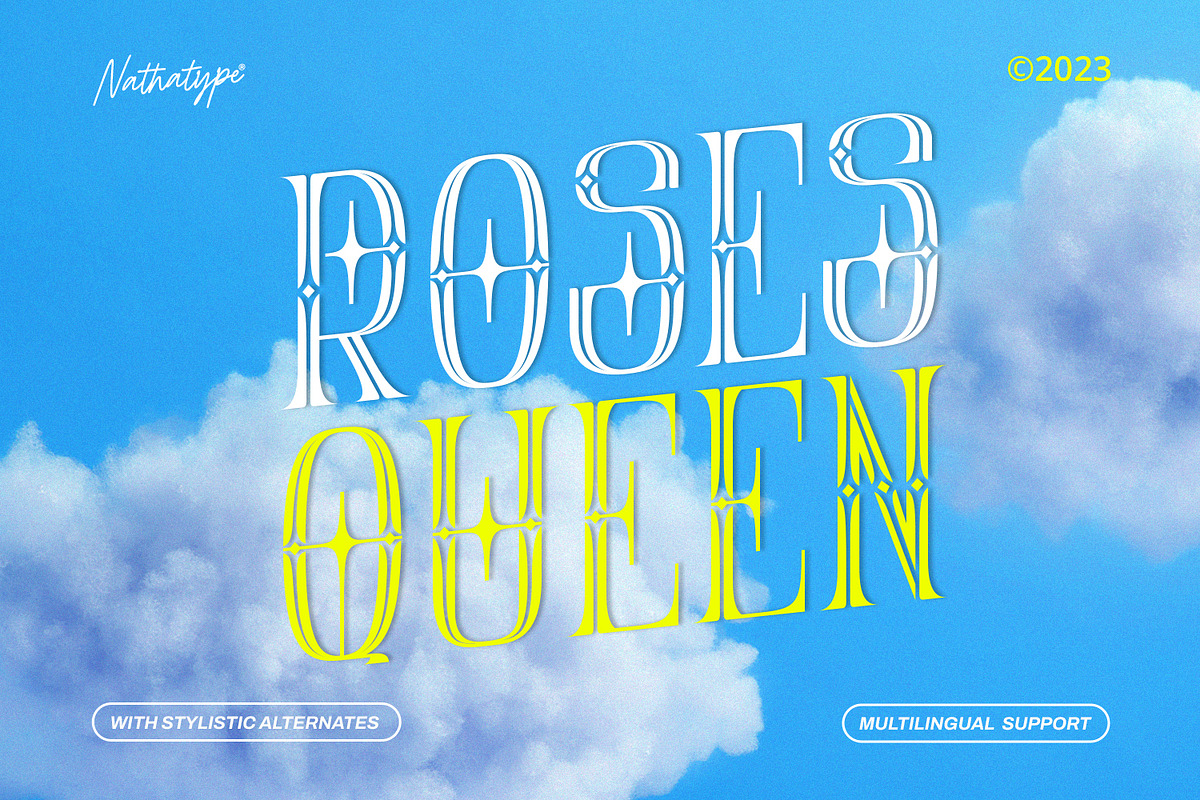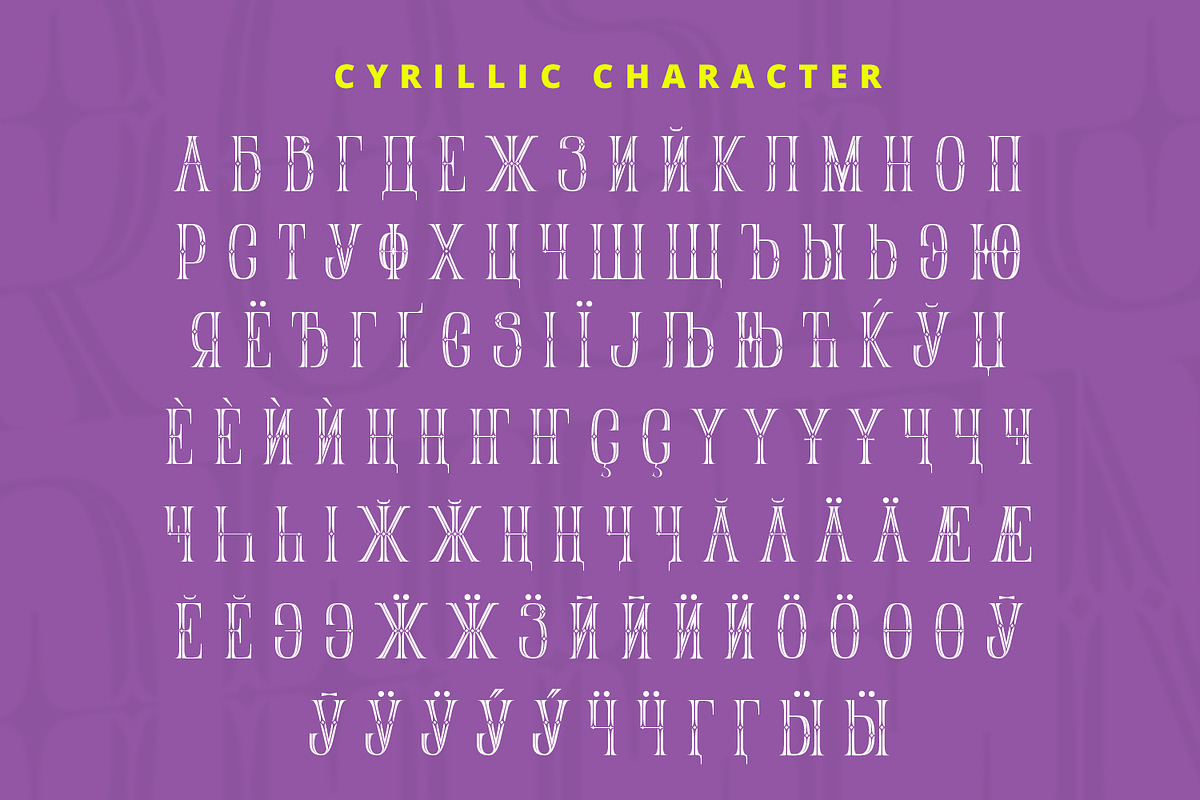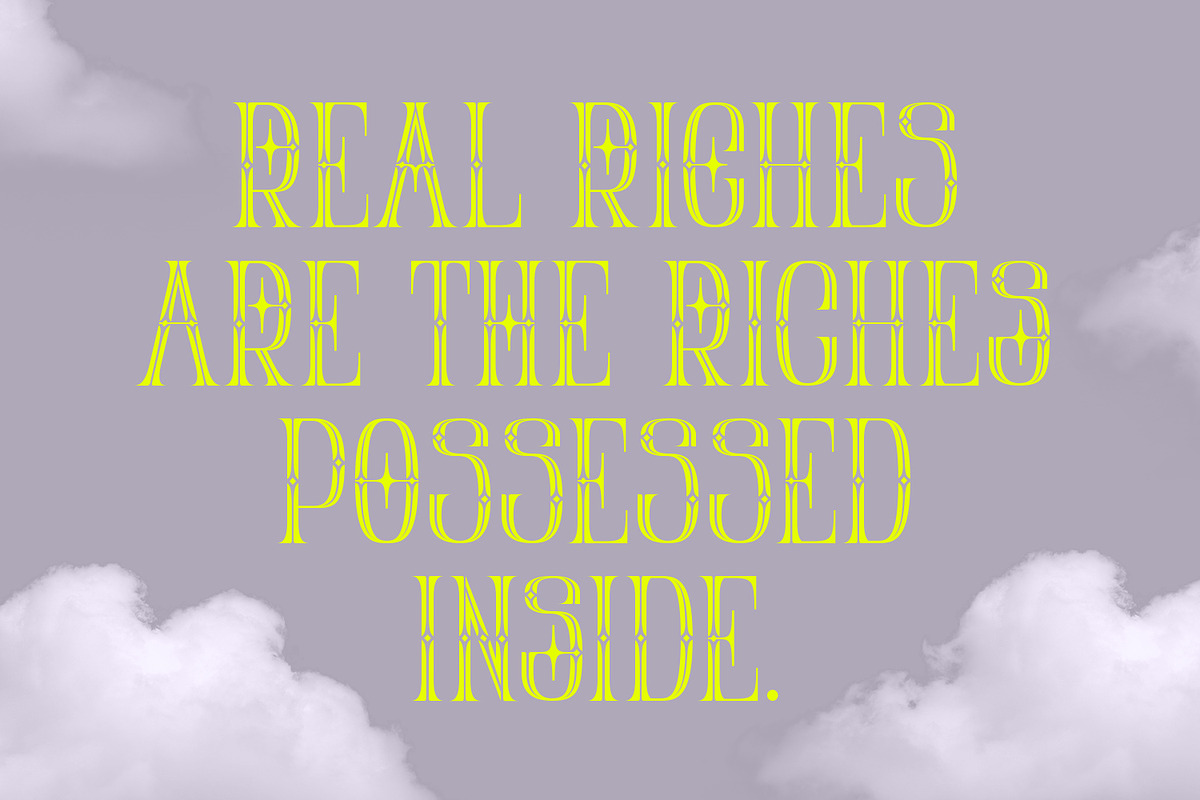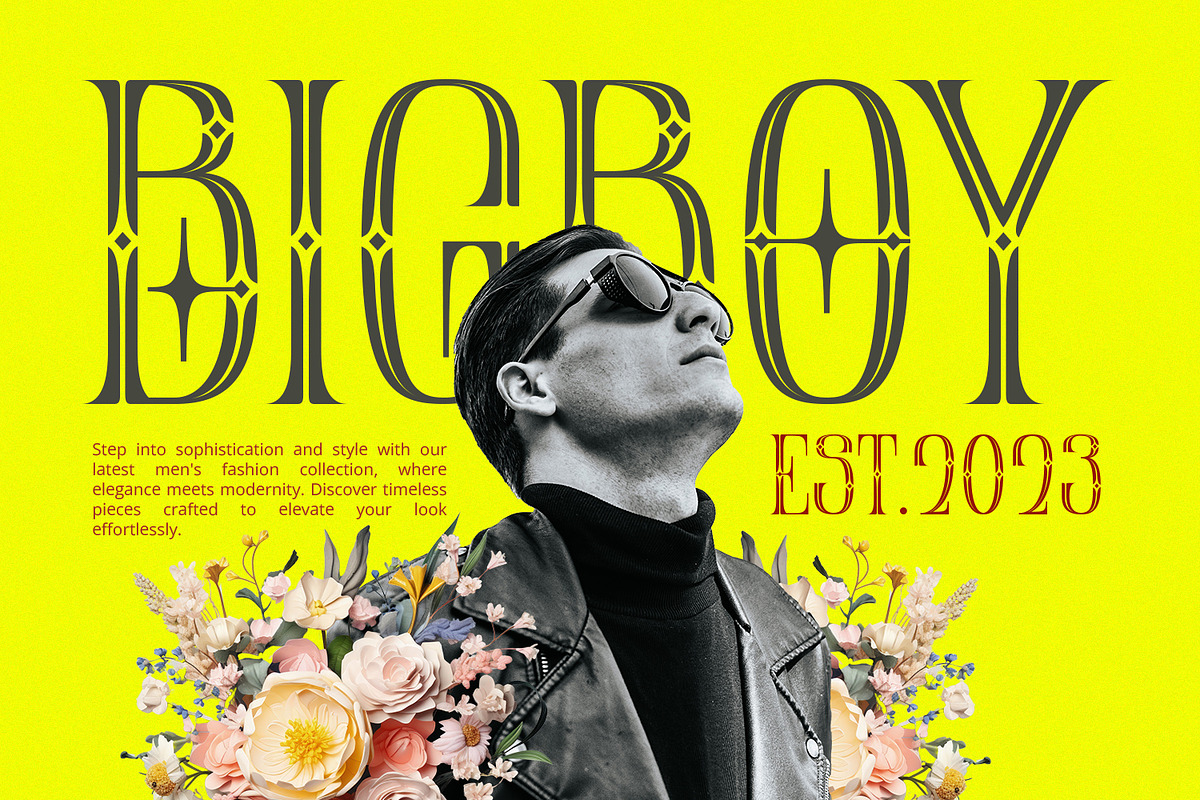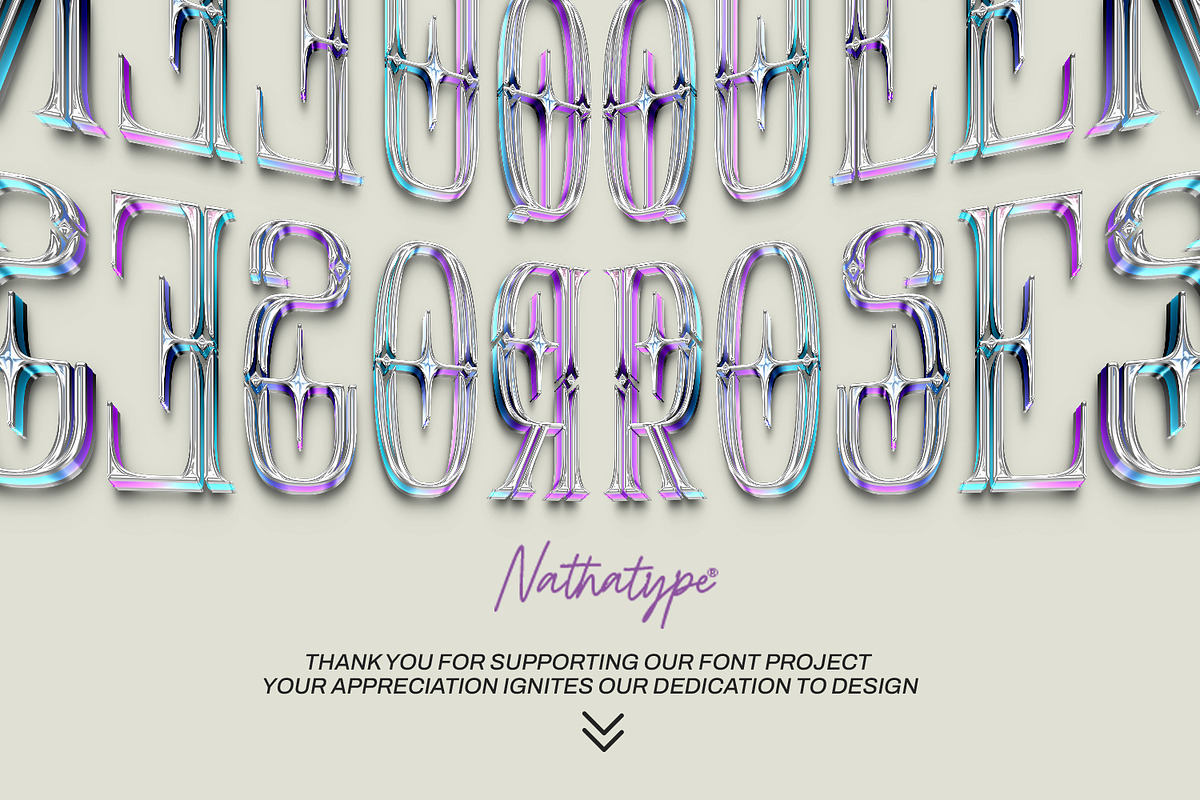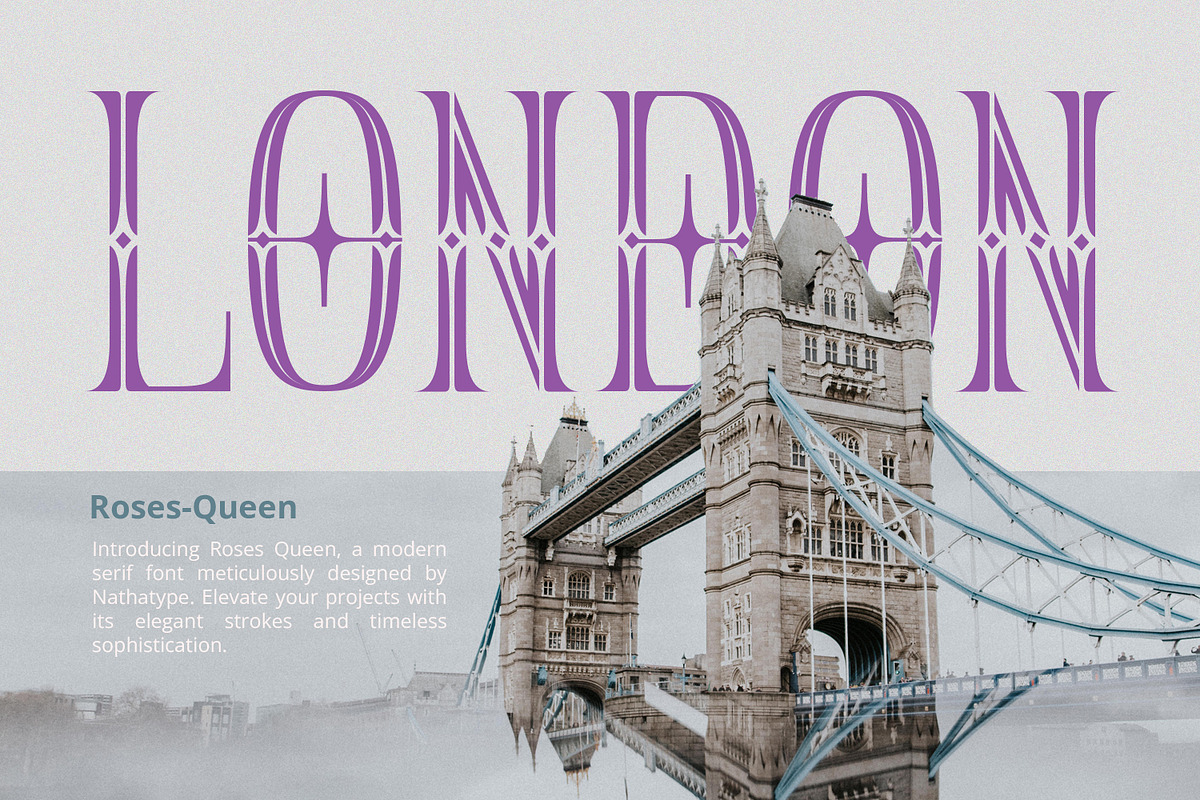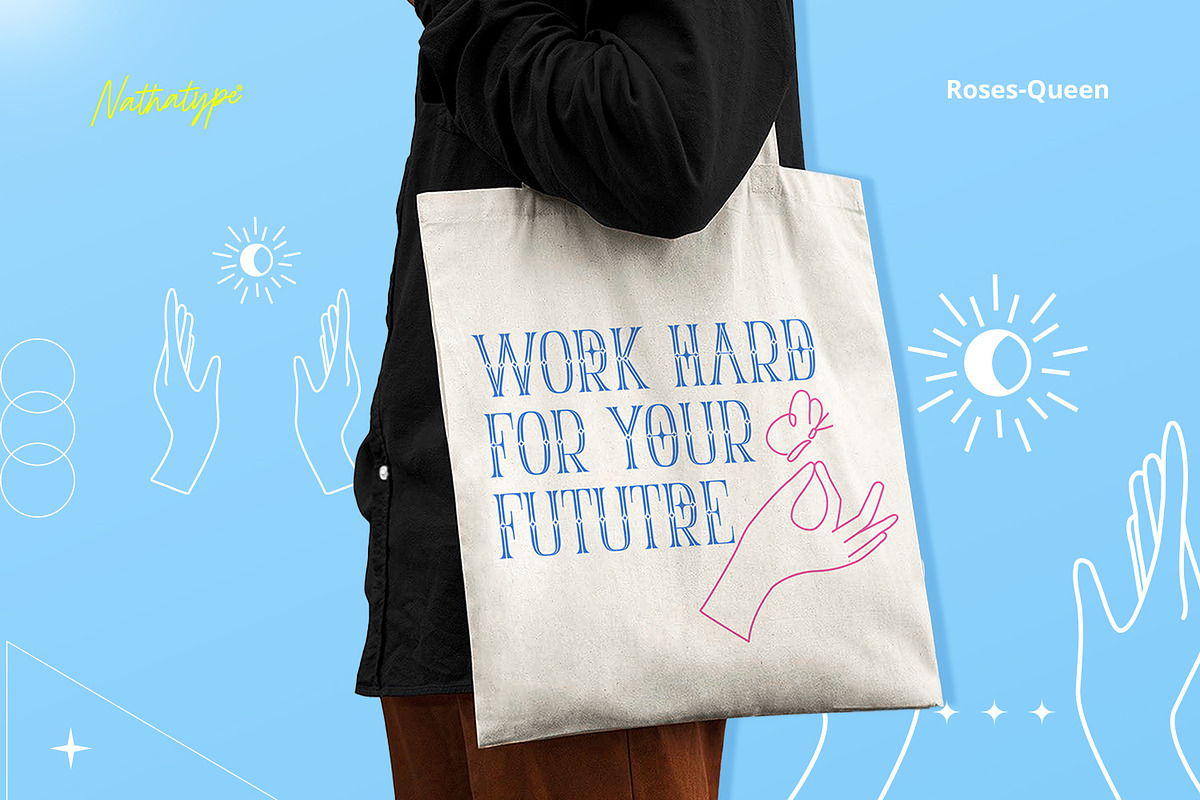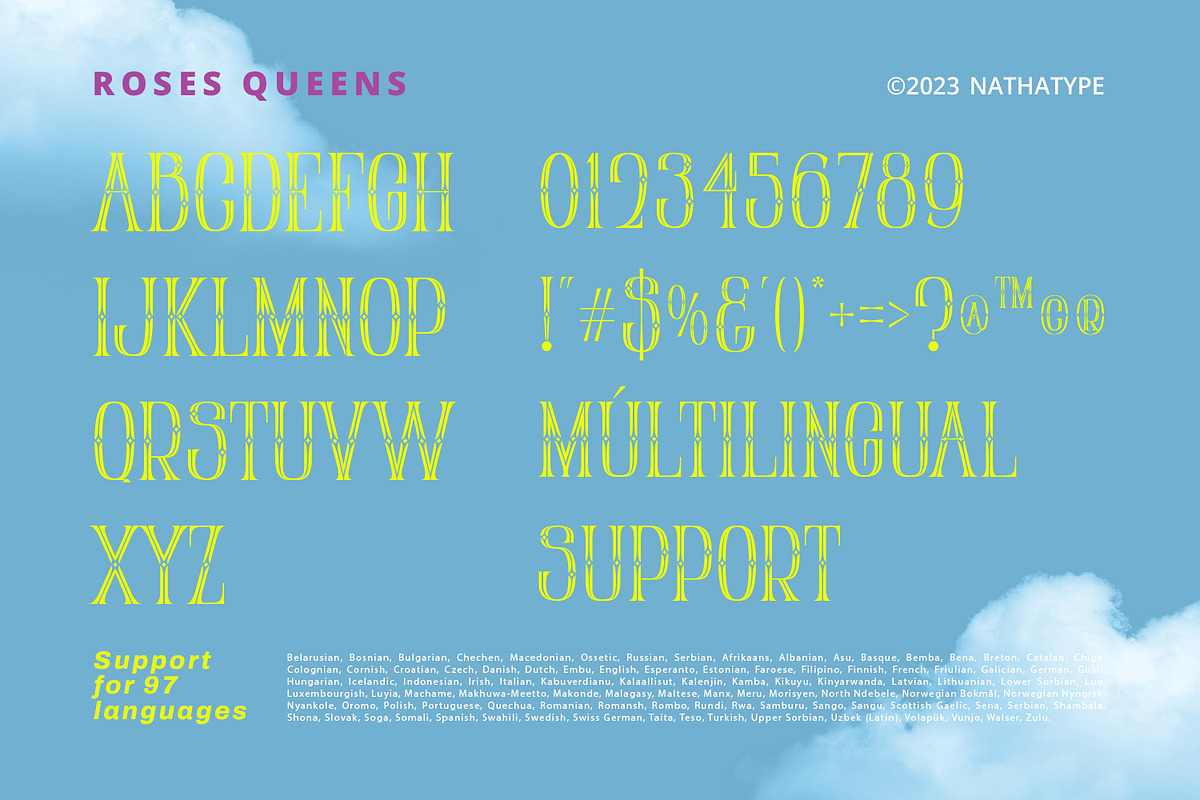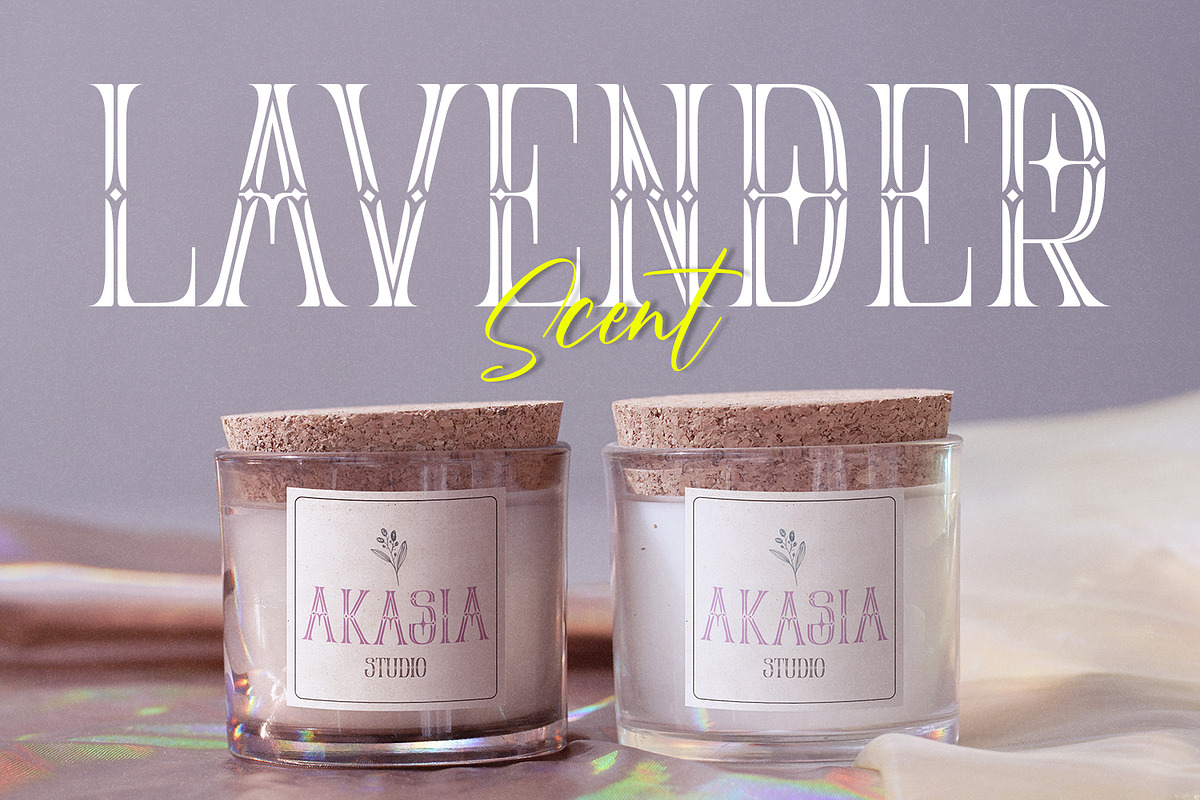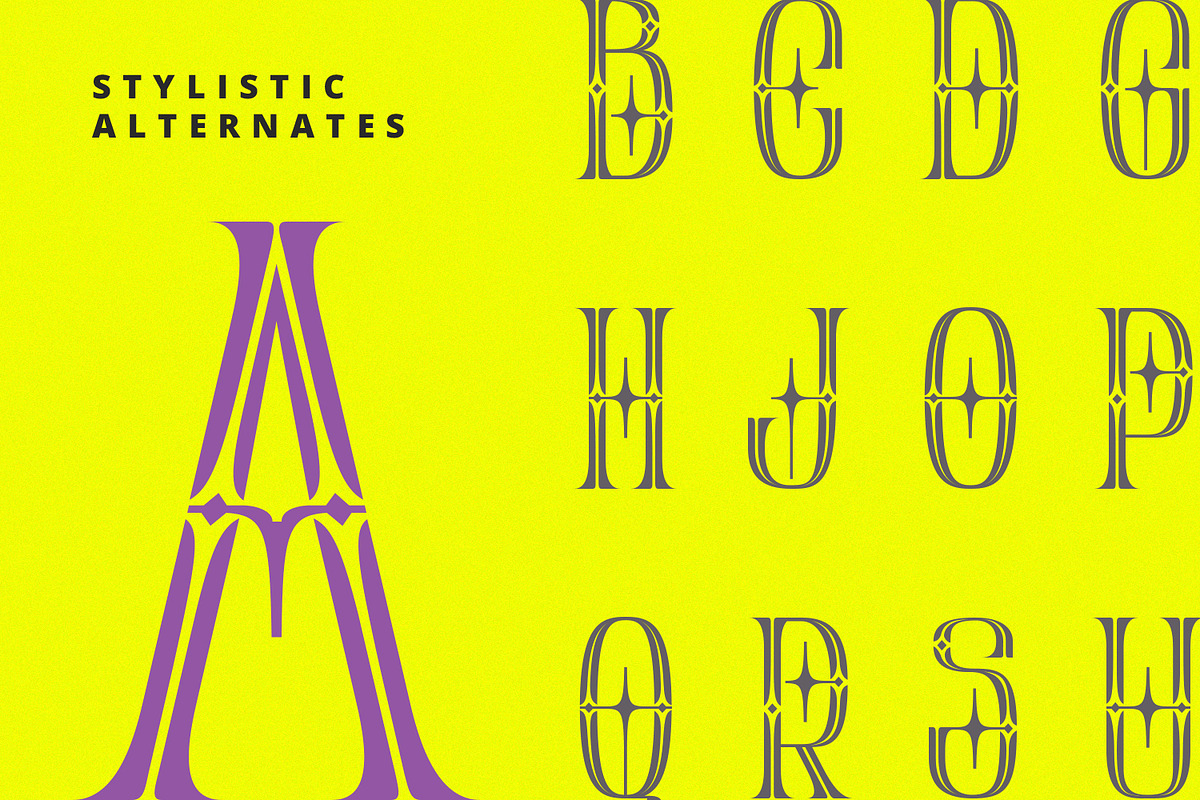
Roses Queen
Roses Queen is an exquisite serif font made in uppercases that reigns with elegance and beauty. What sets Roses Queen apart is the meticulous addition of ornate details, transforming each letter into a regal work of art and bestowing a sense of opulence to the overall appearance.
The characters in Roses Queen boast a commanding size, evoking a sense of authority and grace. The stability of the letter size ensures a harmonious visual flow, contributing to the font's overall sense of refinement. The real magic, however, lies in the intricately designed ornaments that adorn each letter, adding a touch of sophistication and enchantment. In addition, enjoy the features here.
Roses Queen fits in headlines, logos, posters, flyers, branding materials, greeting cards, print media, editorial layouts, and many more designs. Find out more ways to use this font by taking a look at the font preview.